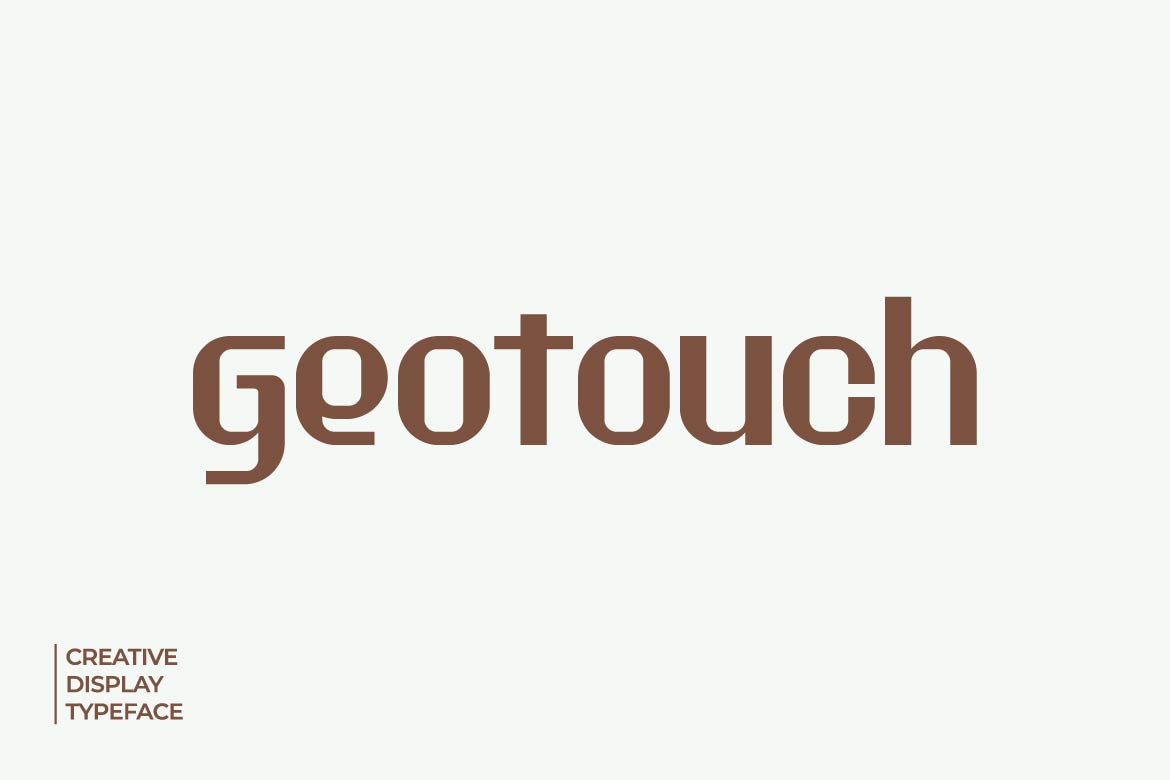
- Geotouch – Creative Display Typeface
Geotouch is a creative display typeface designed to bring originality and bold expression into modern typography. Combining clean geometry with distinctive display characteristics, Geotouch delivers a fresh visual style that instantly captures attention while maintaining excellent readability.
Perfect for logos, branding, posters, packaging, editorial layouts, merchandise, social media graphics, and advertising campaigns, Geotouch offers the flexibility to create memorable visual identities across both print and digital media. Its creative personality makes it an excellent choice for agencies, startups, lifestyle brands, and designers looking for typography with a modern artistic edge.
Whether you’re developing a new brand, launching a creative campaign, or designing eye-catching headlines, Geotouch provides the confidence and versatility to make every project stand out.
Geotouch isn’t just a typeface—it’s a creative statement that transforms ideas into unforgettable visual identities.